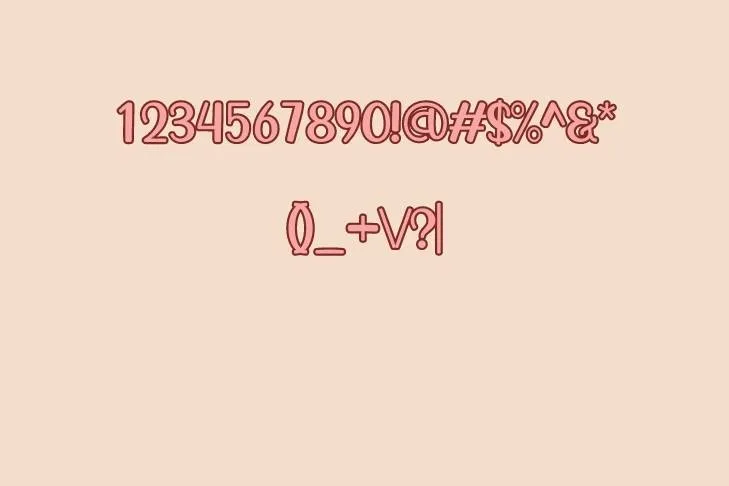
Baby Chipmunk font is a playful and funky Display typeface which is beautifully created by a famous artist Ronna Penner. The font equips a distinctive and attractive style which is ideal for projects that demand an energetic and vibrant touch.
This cute and clumsy typeface took inspiration from its lettering from a cute creature, Chipmunk, and features whimsical imagery which also resembles this creature. This playful typeface is a must-have font for designers who want to add a whimsical and fun flair to their projects.
How to Use Baby Chipmunk Font in Your Designs?
This whimsical and clumsy typeface can be optimized for a wide range of projects. Its playful tone, energetic vibe, and whimsical appearance are perfect to design covers or create titles for storybooks and comic books related to children and teenagers. Unlock the potential for impressive displays by pairing this typeface with the foxus font.
It is also suitable and demanding to create theme-based posters, greeting cards, and invitation cards for events like birthdays, friendship days, or children-related events, which require a funky and vibrant feel. It is also beneficial to create customized items for children or to imprint names, or other texts on cakes, clothes, and other children-based stuff.
Display of Baby Chipmunk Font
This multifaceted typeface beholds a distinguished and attractive style that is achieved through its funky and cute imagery and playful lettering structure. This aesthetically elegant font comprises both upper and lowercase letters, numerals, and punctuations.
This exquisite and charming typeface also beholds an expanded set of characters including accented characters, which sets it appropriate for projects that require multilingual text. It has bubbly-shaped characters which sets it apart from other typefaces.
Baby Chipmunk Font Pairings and Combinations
When you are going to pair it with other fonts, you have to keep in consideration its playful and charming style of lettering. There are several fonts that go perfectly with this stunning typeface. For instance, Montserrat, Pacifico, and Lobster font pair nicely with this amazing typeface and these combinations draw the attention of viewers.
What kind of font is the Baby Chipmunk?
Baby Chipmunk font is a playful and funky Display typeface which is beautifully created by a famous artist Ronna Penner. The font equips a distinctive and attractive style which is ideal for projects that demand for an energetic and vibrant touch.
Can I use the Baby Chipmunk typeface for children-related stuff?
It is also suitable and demanding to create theme-based posters, greeting cards, and invitation cards for events like birthdays, friendship days, or children-related events, which require a funky and vibrant feel.